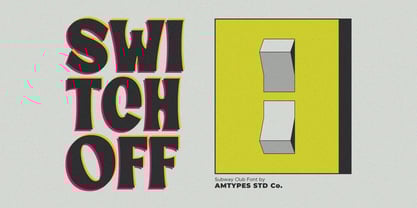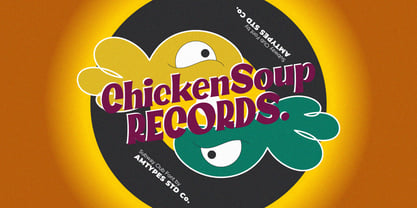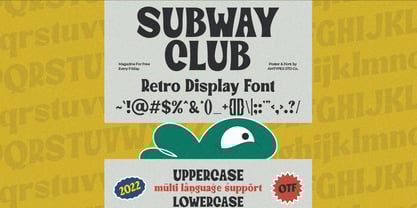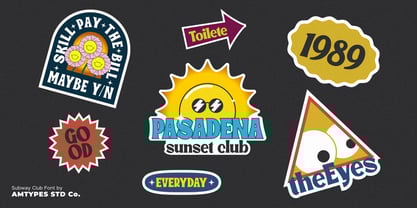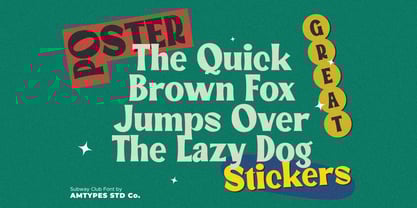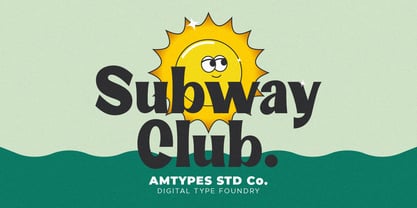
Subway Club
by Angga Mahardika
Subway Club is a retro display font made by passion. This font is perfect for print design needs such as posters, stickers, invitations, banners and also for digital design needs.